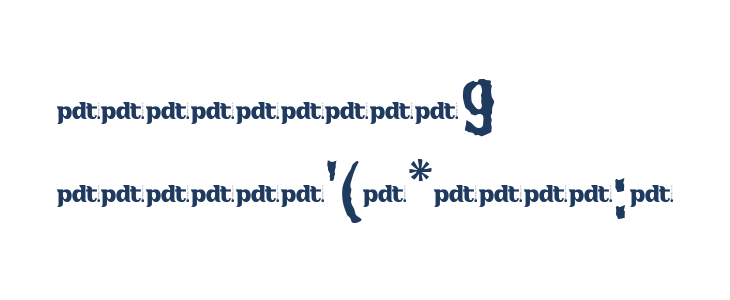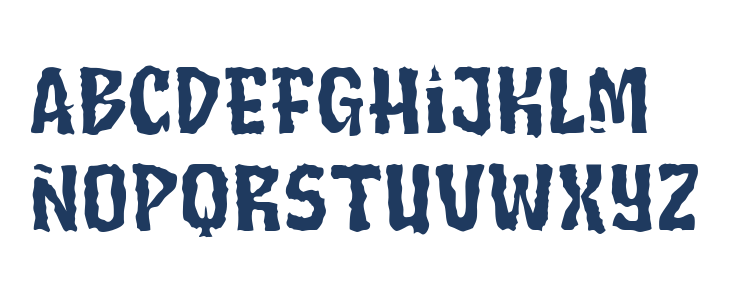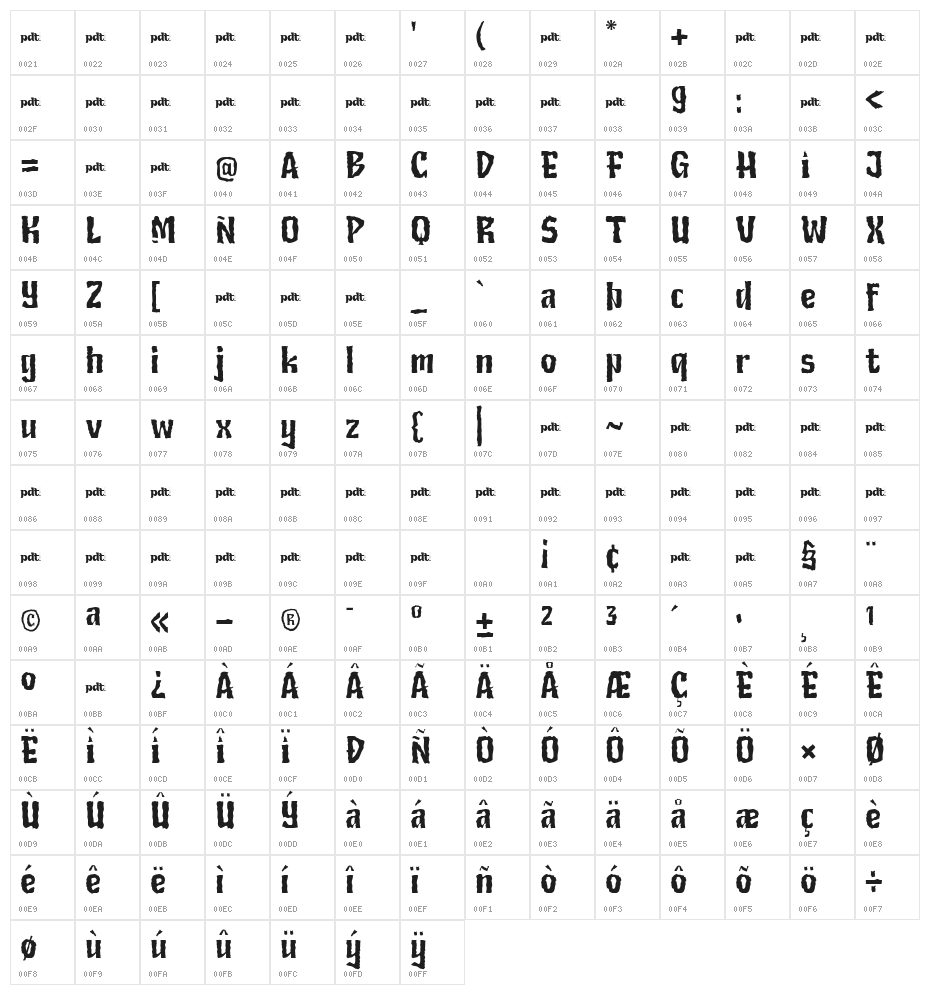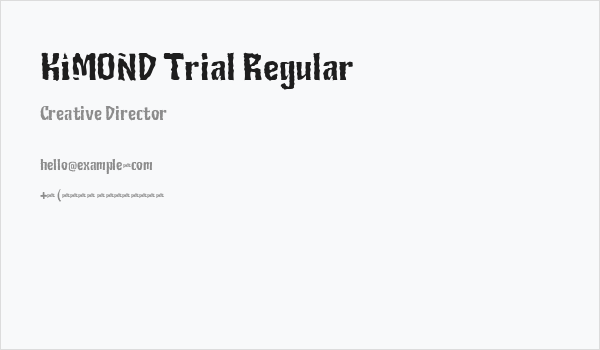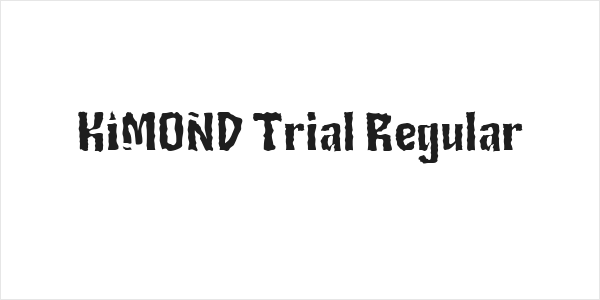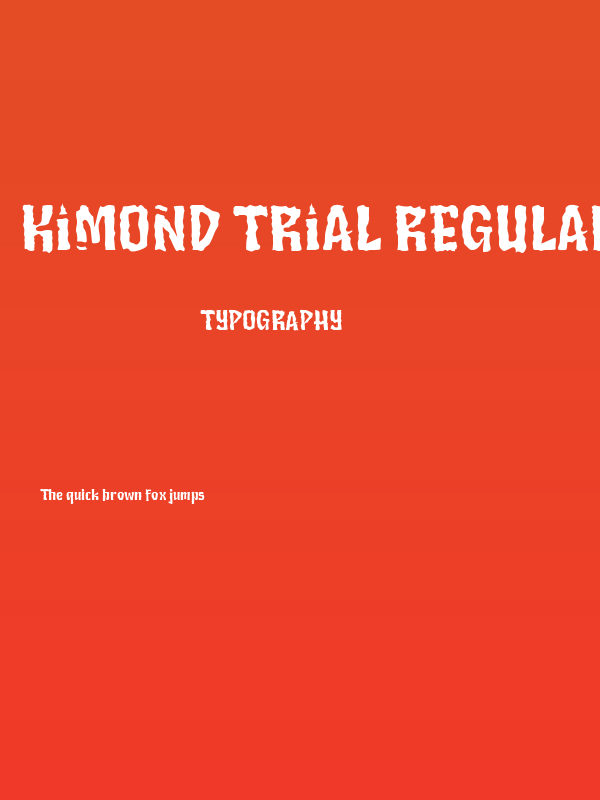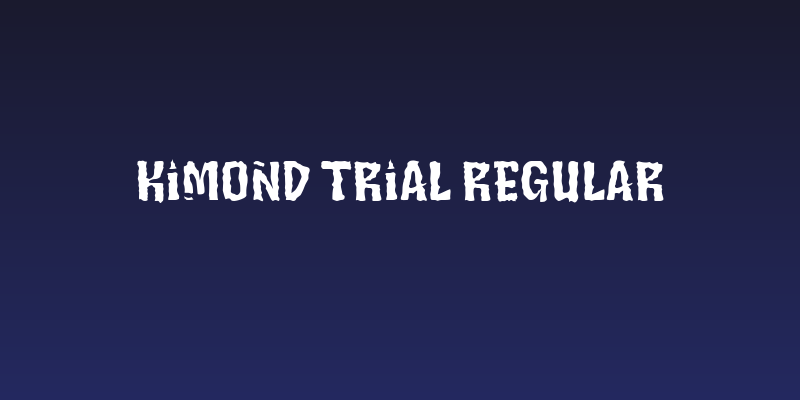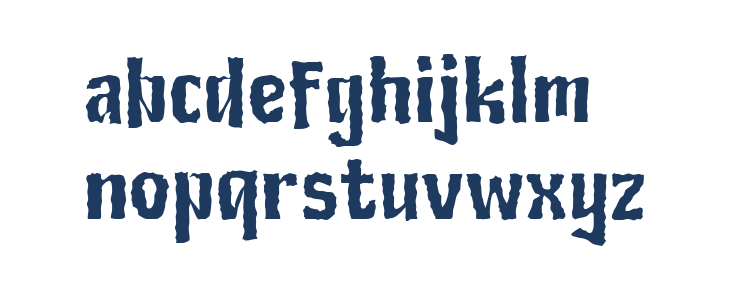
KIMOND Trial Regular Font
KIMOND Trial Regular Description
A bold, irregular display typeface with jagged, hand-crafted edges and uneven stroke thickness, giving it a rough, organic appearance. The characters are wide and have a playful, slightly chaotic feel, with high contrast between thick and thin areas. The font includes both uppercase and lowercase letters, numerals, and a selection of punctuation and symbols.
| Overall Style | Decorative, Organic, Playful, Rough |
| Use Case | Headlines, Posters, Logos, Themed Graphics |
| Proposed Projects | Halloween posters, horror movie titles, event flyers, book covers, themed branding, artistic projects. |